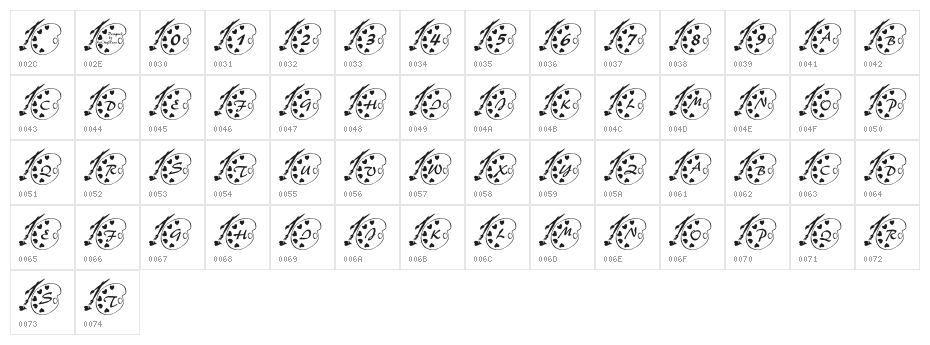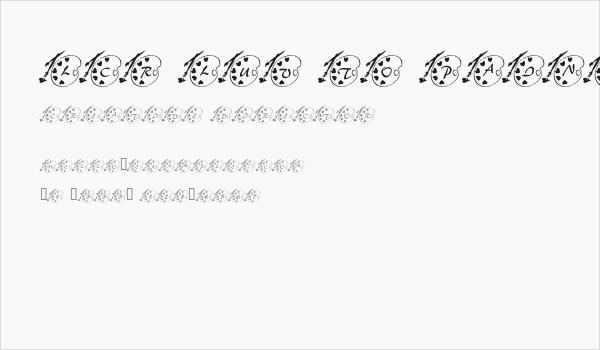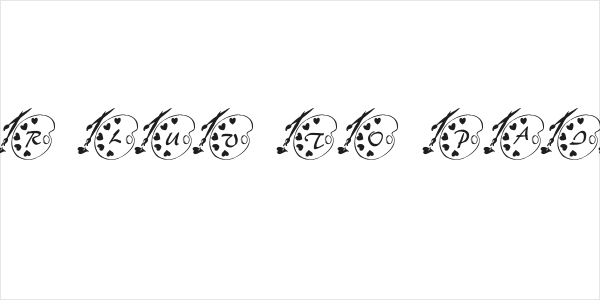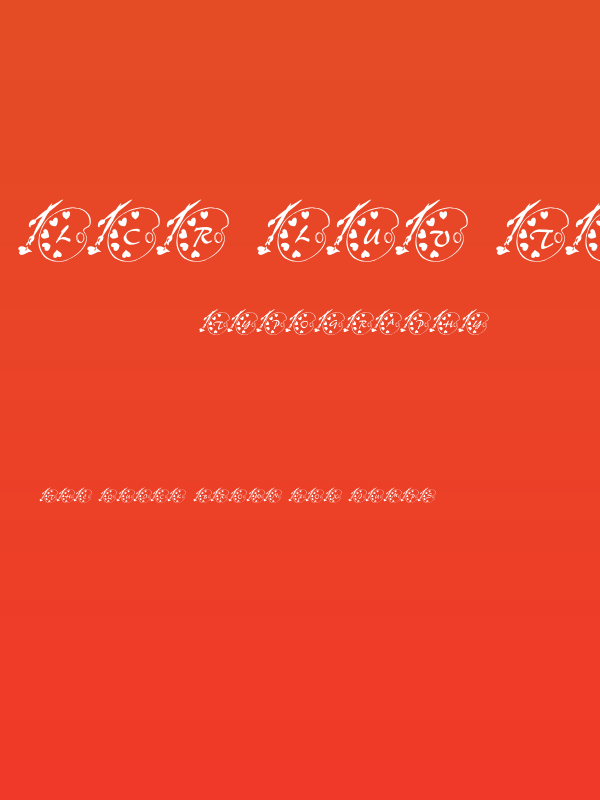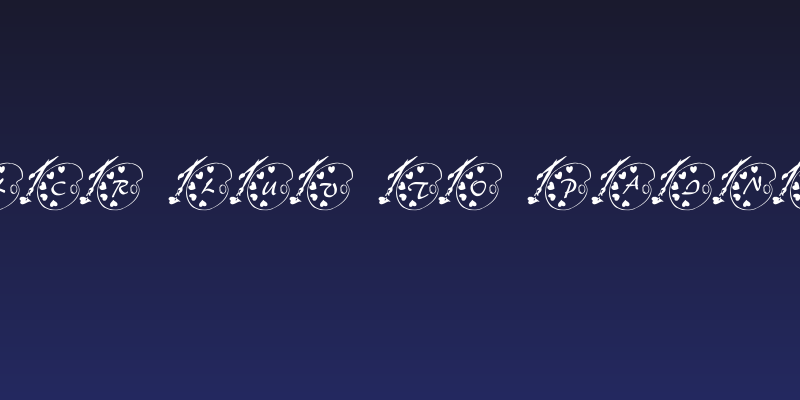
LCR Luv To Paint Font
LCR Luv To Paint Description
This decorative font features each character enclosed within a painter's palette, complete with paintbrushes and paint splatters. The design is whimsical and artistic, making it ideal for creative projects. The letters are bold and distinct, ensuring readability despite the intricate design. The font includes both uppercase and lowercase letters, numbers, and a selection of special characters, all maintaining the same artistic theme. The playful nature of the font makes it suitable for projects that require a touch of creativity and fun.
| Proposed Projects | Ideal for art-related branding, children's book covers, creative event invitations, and playful graphic design projects. |